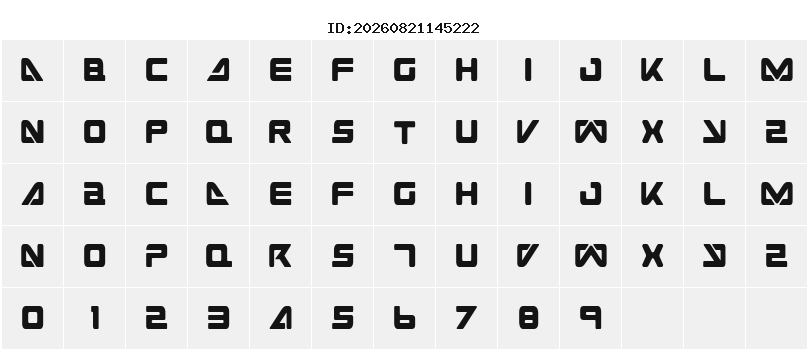
Sea Dog 2001 Condensed Preview
• Font Name: Sea Dog 2001 Condensed
• Font Style: Condensed
• Full Font Name: Sea Dog 2001 Condensed
• Designer: Dan Zadorozny
About Sea Dog 2001 Condensed.ttf
Sea Dog 2001 Condensed.ttf is a modern, elegant sans-serif font designed for ultimate readability and visual harmony. Perfect for branding, headlines, web design, and print materials.